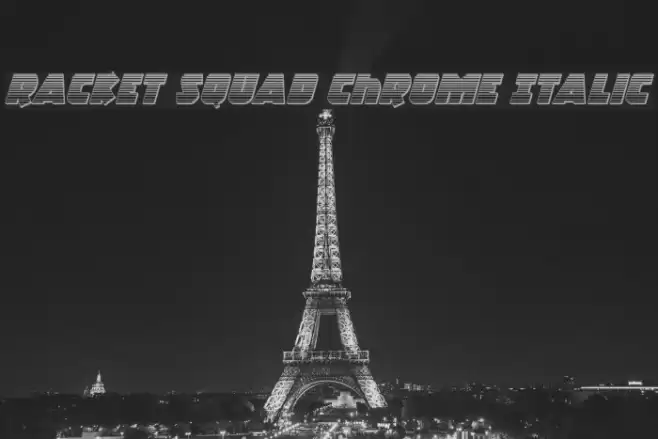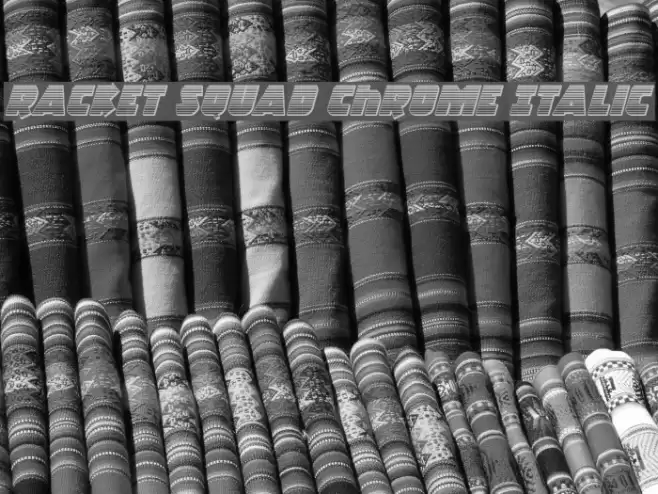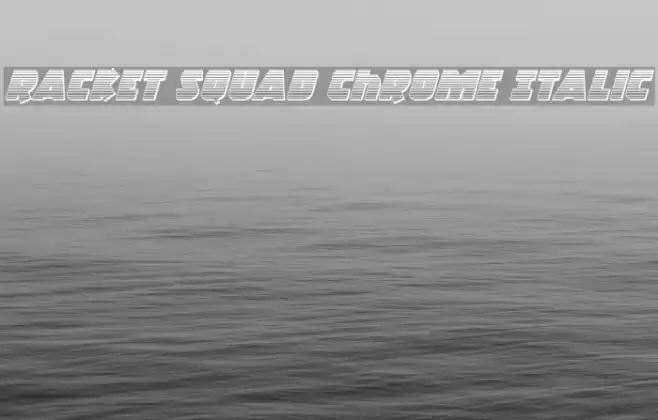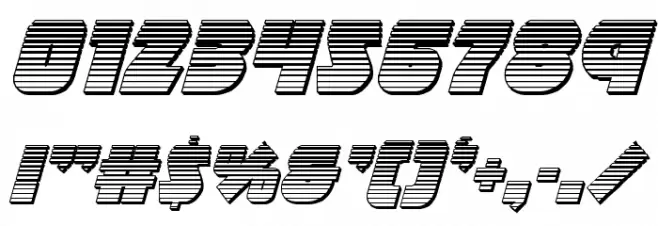
Racket Squad Chrome Italic Font
Racket Squad Chrome Italic Description
This font features a bold, italicized style with a distinct chrome-like appearance. The characters are designed with horizontal lines that create a sense of movement and depth, giving it a futuristic and dynamic look. The uppercase and lowercase letters maintain a consistent width, while the numbers and special characters follow the same design principles, ensuring uniformity across all glyphs. The font's unique design makes it stand out, with each character appearing as if it's in motion, thanks to the angled lines and italic slant. This font is perfect for projects that require a modern and edgy aesthetic.
A bold, italicized font with a chrome-like, dynamic appearance from Uncategorized fonts.
- Proposed Projects: Ideal for futuristic designs, tech branding, video game titles, and dynamic posters.